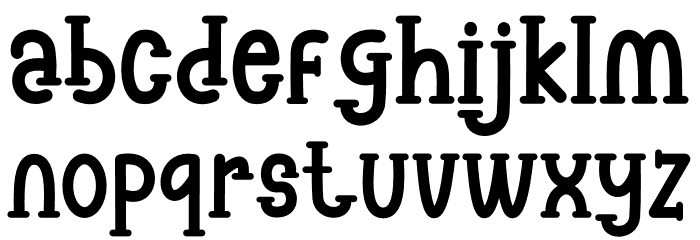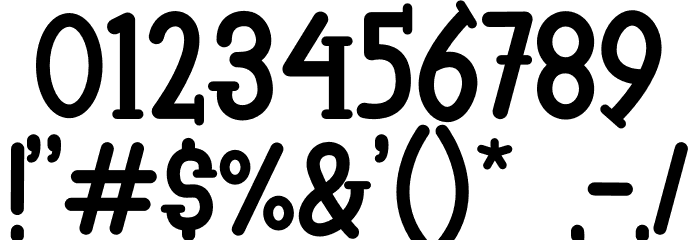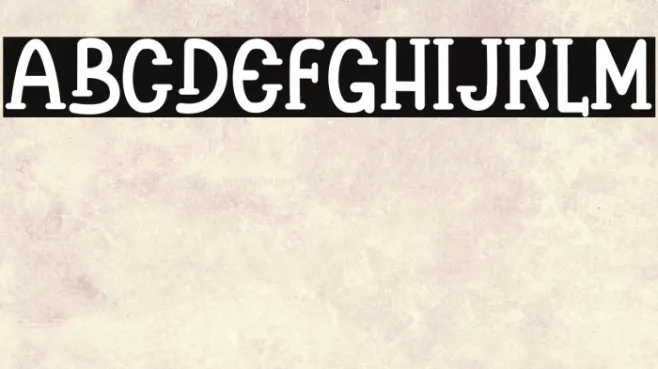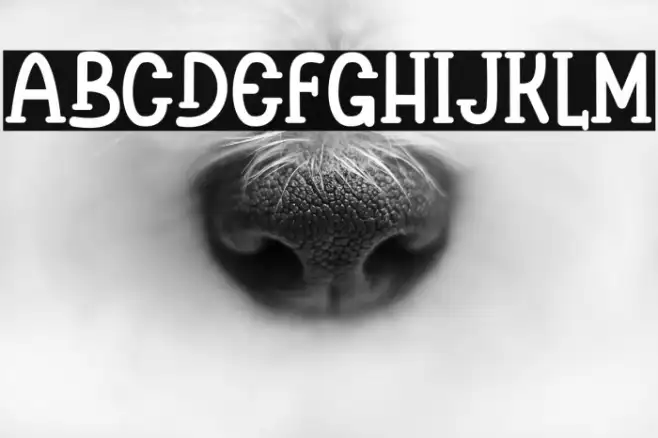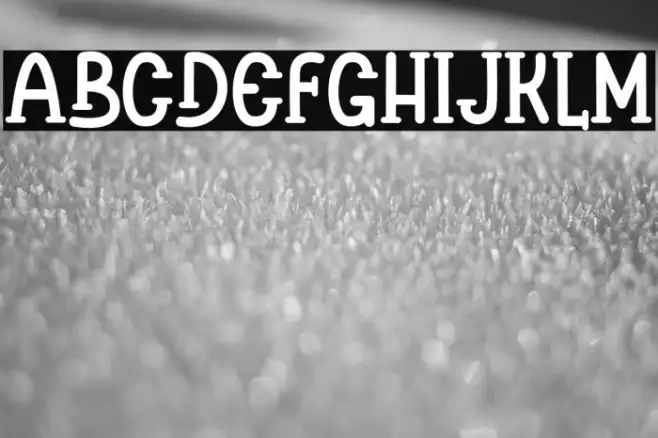
Balone Kids Font
This playful and whimsical font features rounded, balloon-like characters that convey a sense of fun and lightheartedness. The uppercase and lowercase letters maintain a consistent style with exaggerated curves and a slightly condensed form, giving the font a unique and approachable appearance. The numerals and special characters are designed with the same playful aesthetic, ensuring a cohesive look across all text. The font's bold strokes and rounded edges make it highly legible, while its distinctive style adds a touch of creativity and joy.
A playful, balloon-like font with rounded characters and a whimsical style.
- Font: Balone Kids
- Proposed Projects: Ideal for children's books, playful branding, party invitations, and educational materials.
- Overall Style: Playful